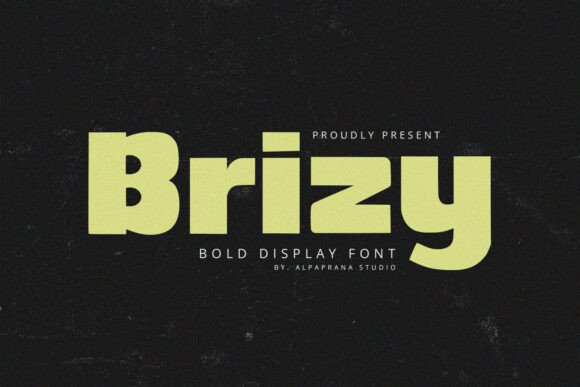
Brizy Font: The Ultimate Display Sans Serif Font for Modern Design
Brizy Font is a stunning display sans serif font that exudes elegance and modernity. Its sleek and clean design makes it perfect for a wide range of design projects, from branding and logo design to lettering, logotype, and more. In this article, we’ll dive into the features and benefits of Brizy Font, and explore its various uses in the world of design.
What is Brizy Font?
Brizy Font is a display sans serif font that boasts a unique and sophisticated design. Its elegant and modern feel makes it an ideal choice for designers looking to create stunning visual content. The font features a clean and minimalist design, with subtle rounded edges that give it a friendly and approachable feel.
Key Features of Brizy Font
- Elegant and Modern Design: Brizy Font features a sleek and sophisticated design that is perfect for modern design projects.
- Display Sans Serif Font: The font is a display sans serif font, making it ideal for headlines, titles, and other display text.
- Clean and Minimalist Design: Brizy Font features a clean and minimalist design that is easy to read and visually appealing.
- Subtle Rounded Edges: The font features subtle rounded edges that give it a friendly and approachable feel.
Uses of Brizy Font
Brizy Font is a versatile font that can be used for a wide range of design projects. Here are some of the most popular uses of Brizy Font:
Design Projects that Brizy Font is Perfect for:
- Branding: Brizy Font is perfect for branding projects, including logos, business cards, and letterheads.
- Logo Design: The font is ideal for logo design, providing a clean and modern look that is sure to make your logo stand out.
- Lettering: Brizy Font is perfect for lettering projects, including hand-drawn letters and typography.
- Logotype: The font is ideal for logotype design, providing a clean and modern look that is sure to make your logotype stand out.
- Clothing: Brizy Font can be used for clothing design, including t-shirts, hoodies, and other apparel.
- Posters: The font is perfect for poster design, providing a clean and modern look that is sure to grab attention.
- Magazines: Brizy Font can be used for magazine design, including headlines, titles, and other display text.
- Packaging: The font is ideal for packaging design, providing a clean and modern look that is sure to make your product stand out.
- Shopping Bags: Brizy Font can be used for shopping bag design, providing a clean and modern look that is sure to make your brand stand out.
- T-Shirts: The font is perfect for t-shirt design, providing a clean and modern look that is sure to make your design stand out.
- Book Covers: Brizy Font can be used for book cover design, providing a clean and modern look that is sure to make your book stand out.
- Photography: The font is ideal for photography projects, including photo titles, captions, and other display text.
- Special Events: Brizy Font can be used for special events, including weddings, conferences, and other events.
Benefits of Using Brizy Font
Brizy Font offers a range of benefits for designers, including:
Benefits of Using Brizy Font:
- Unique and Sophisticated Design: Brizy Font features a unique and sophisticated design that is sure to make your design project stand out.
- Elegant and Modern Feel: The font has an elegant and modern feel that is perfect for a wide range of design projects.
- Clean and Minimalist Design: Brizy Font features a clean and minimalist design that is easy to read and visually appealing.
- Versatile: The font is versatile and can be used for a wide range of design projects.
- Easy to Read: Brizy Font is easy to read, making it perfect for body text and other readable content.
Brizy Font is a stunning display sans serif font that is perfect for a wide range of design projects. Its elegant and modern feel, clean and minimalist design, and versatile uses make it an ideal choice for designers. Whether you’re working on a branding project, logo design, lettering, or other design project, Brizy Font is sure to make your design stand out.